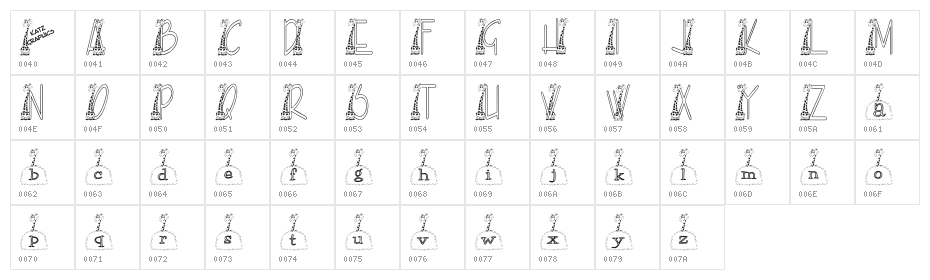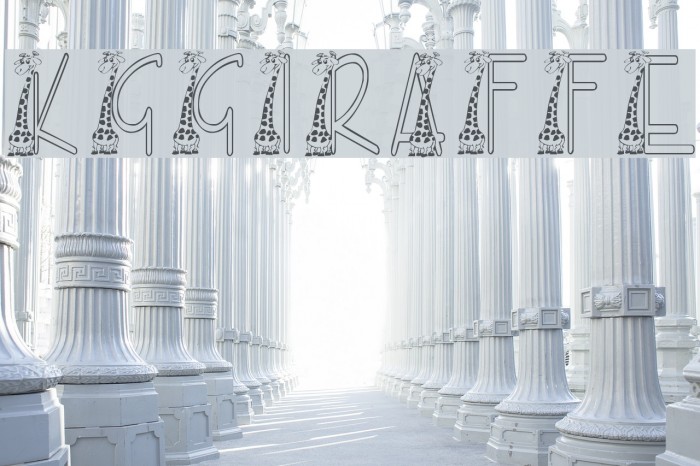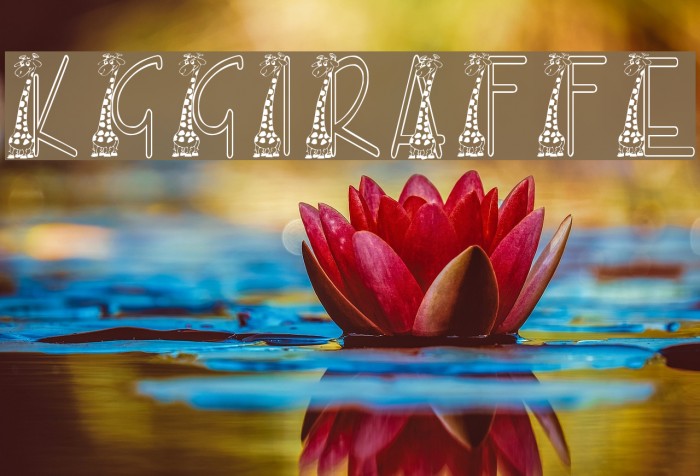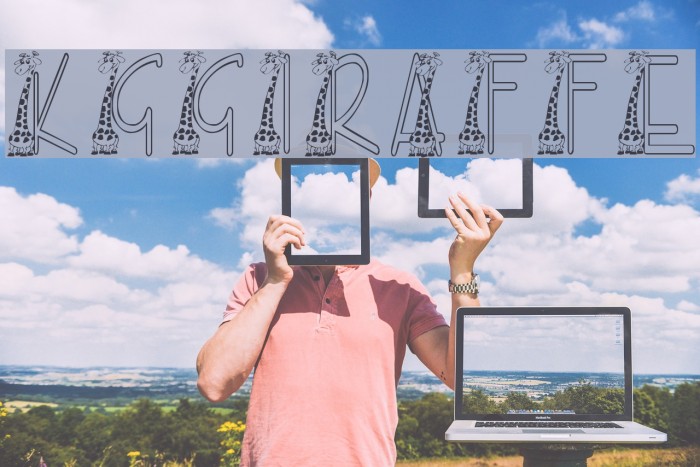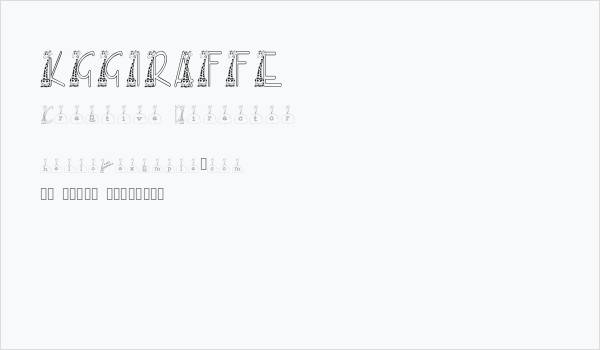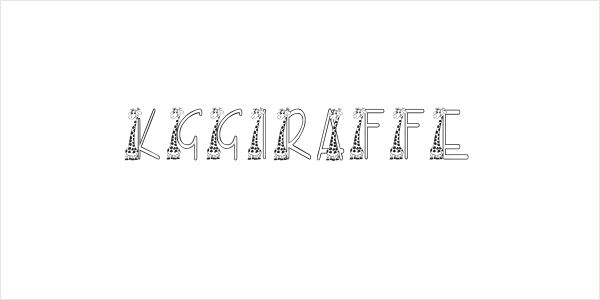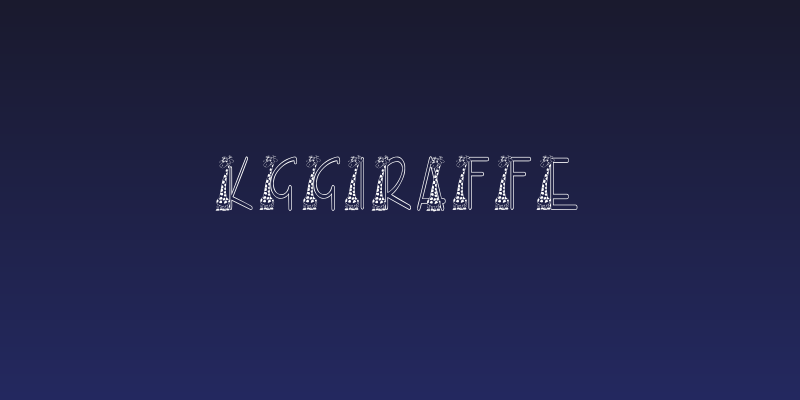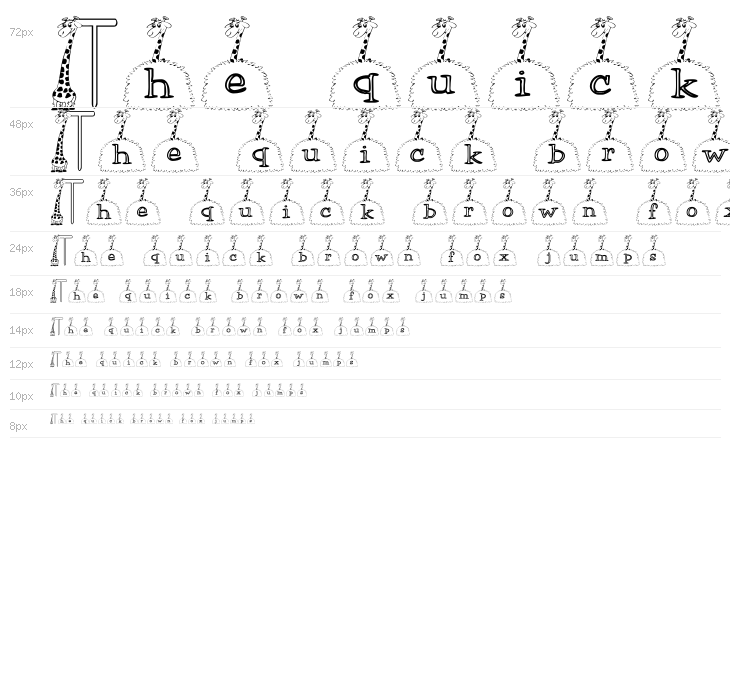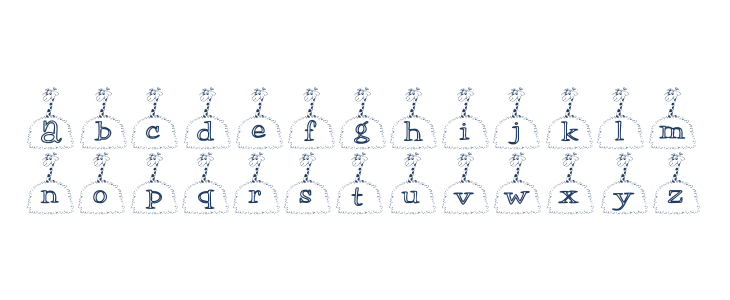
KGGIRAFFE Font
KGGIRAFFE Description
This whimsical and playful font features giraffe-themed letters, where each character is creatively integrated with giraffe patterns and shapes. The uppercase letters are tall and slender, resembling the elongated neck of a giraffe, while the lowercase letters maintain a consistent theme with a more rounded and compact form. The font includes numbers and a selection of special characters, all maintaining the giraffe motif. This unique design adds a fun and imaginative touch, making it ideal for projects that require a lighthearted and creative aesthetic.
| Overall Style | Whimsical |
| Use Case | Headlines, Logos, Decorative text |
| Proposed Projects | Ideal for children's books, educational materials, playful branding, and themed party invitations. |